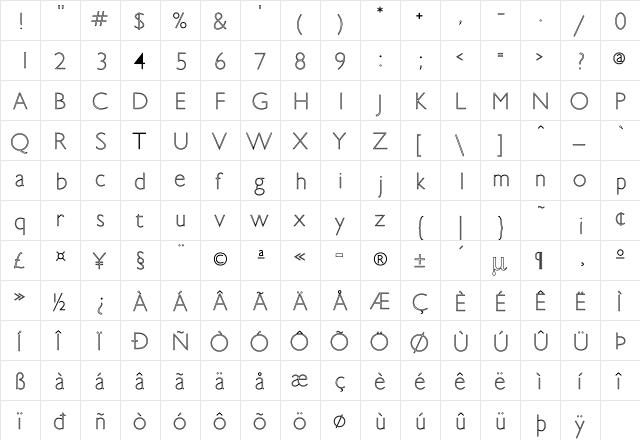
Gilligan Ho Regular
Design Context for Gilligan Ho Typeface
Gilligan Ho offers clean, dependable letterforms without strong stylistic allegiance, making it a practical choice for designers who need flexibility.
Pro Tip: Use Gilligan Ho in both headline and body roles to test its range before committing to a single application.